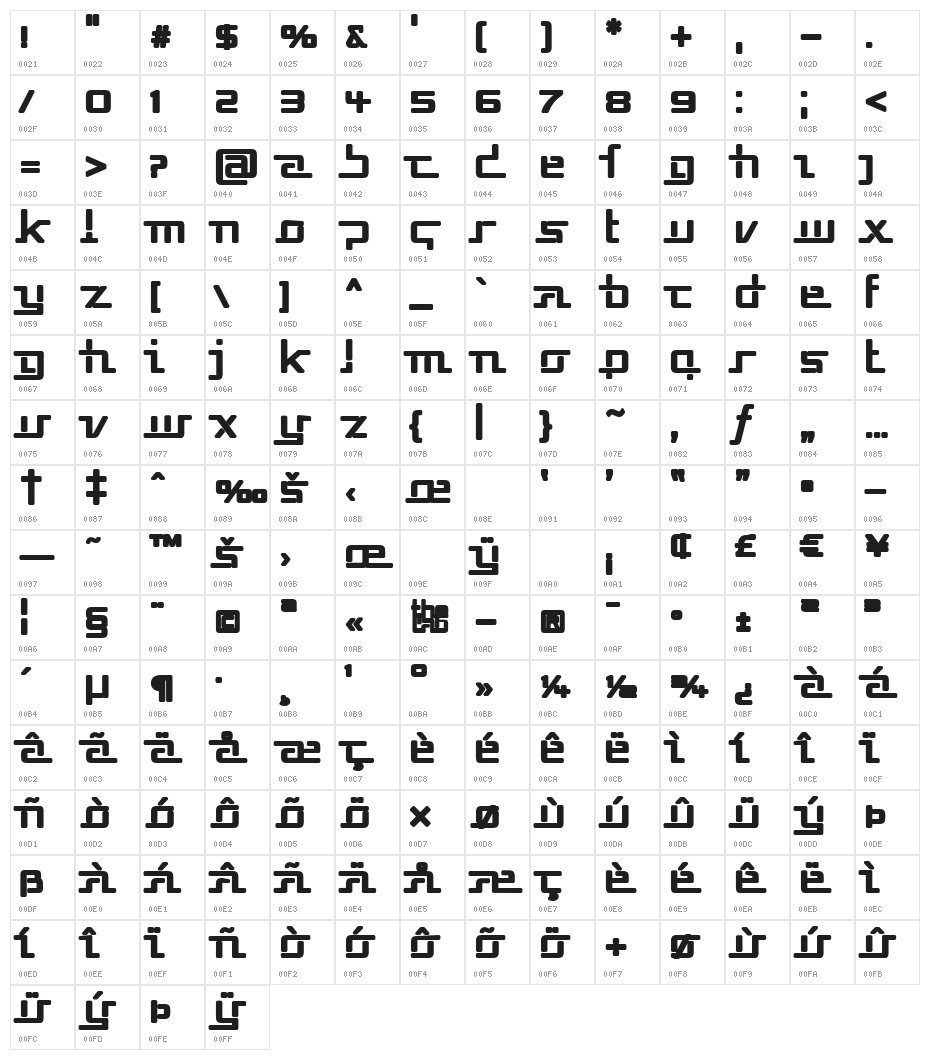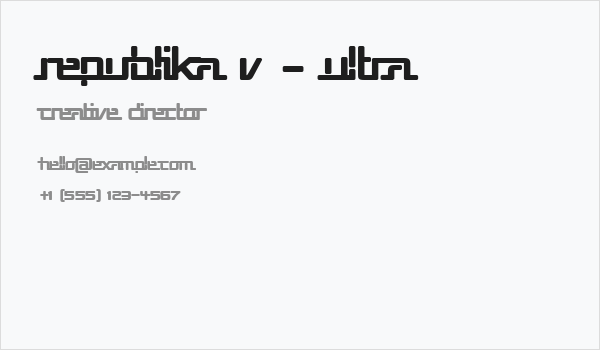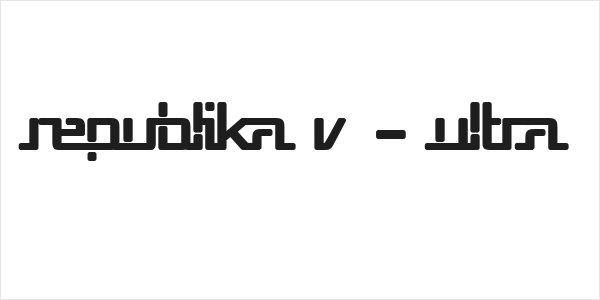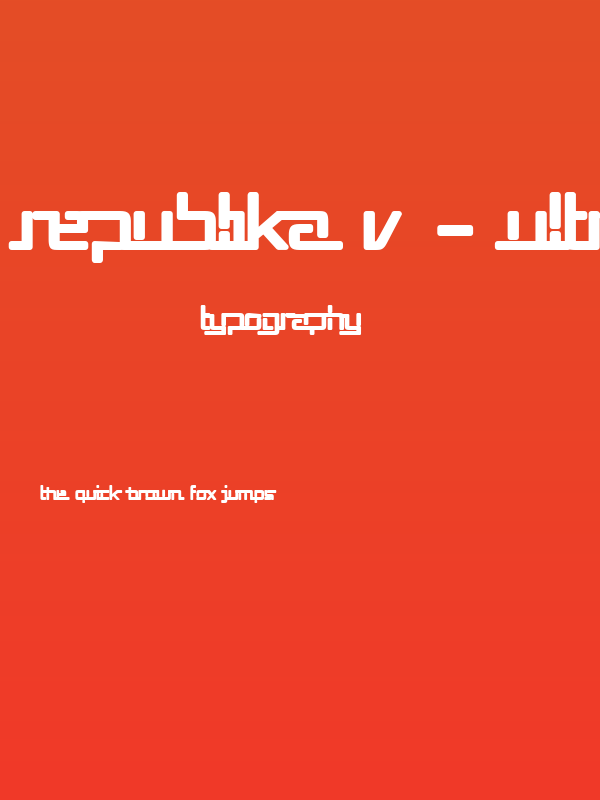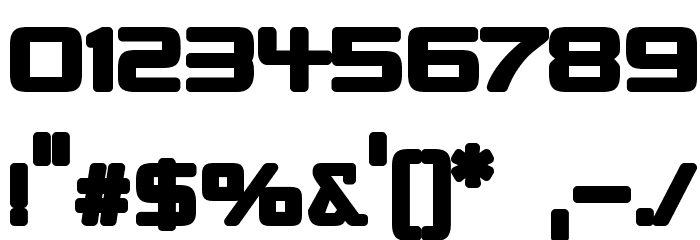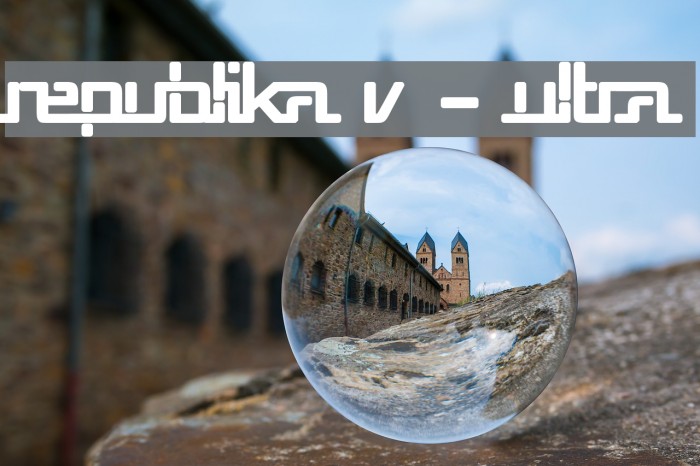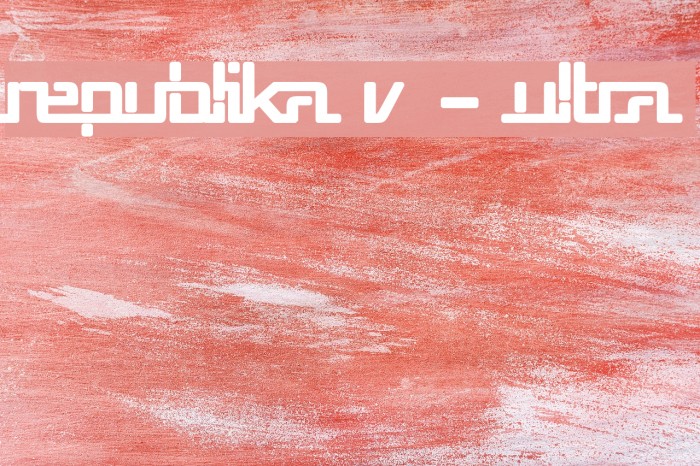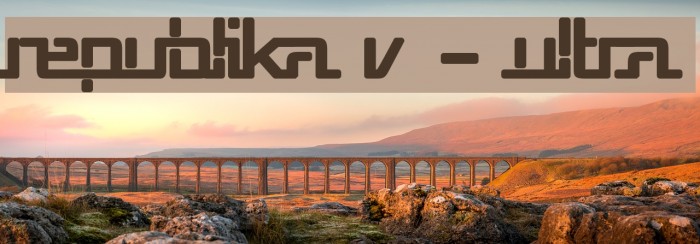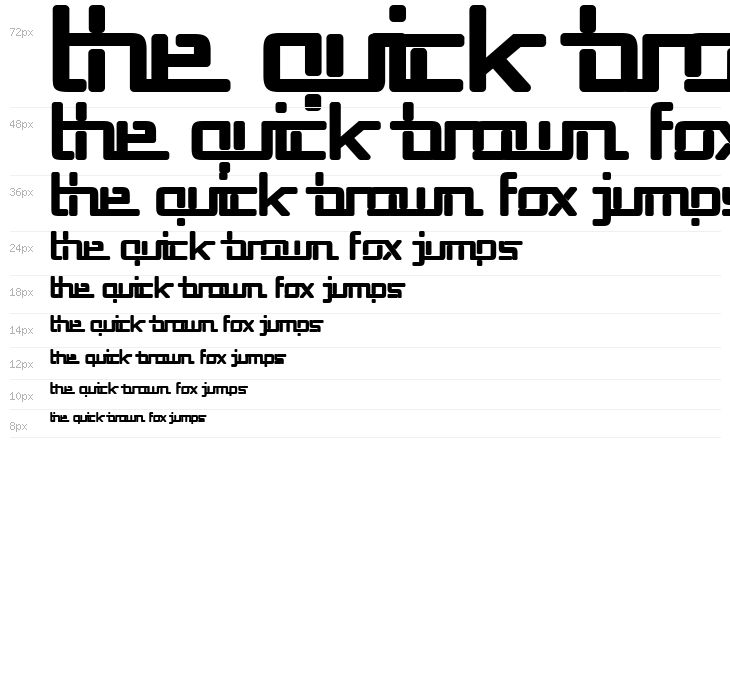
Republika V - Ultra Font
Republika V - Ultra Description
This font features a bold, geometric design with a futuristic and modern aesthetic. The characters are constructed with thick, uniform strokes that create a strong visual impact. The rounded edges and consistent line thickness give it a sleek and cohesive appearance. The uppercase and lowercase letters maintain a uniform height, contributing to a monospaced feel. The numerals and special characters are designed to match the overall style, ensuring a harmonious look across all elements. This font is ideal for projects that require a bold and modern touch.
Fonts by Apostrophic Lab
| Proposed Projects | Ideal for technology branding, futuristic posters, video game titles, and modern advertising. |